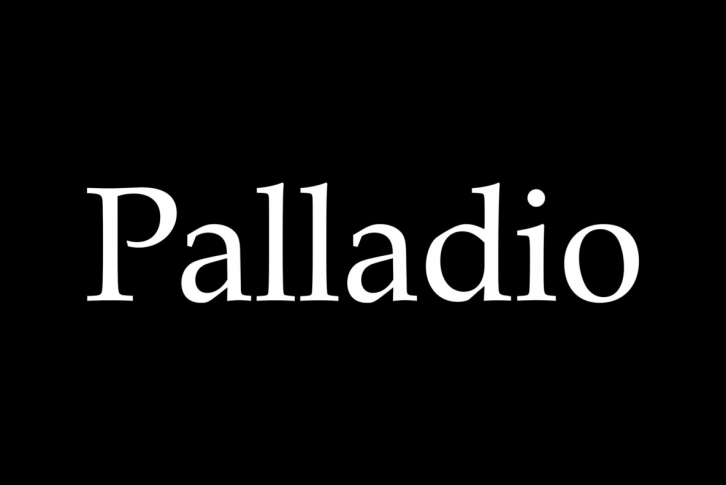
URW Palladio (or known as Palatino) is the name of this typeface family that began as an old style serif typeface designed by Hermann Zapf initially released in 1948.
In 1999, Zapf revised Palatino for Linotype and Microsoft, called Palatino Linotype. The revised family incorporated extended Latin, Greek, and Cyrillic character sets.
Under the collaboration of Zapf and Akira Kobayashi, the Palatino typeface family was expanded. Linotype released the Palatino nova, Palatino Sans, and Palatino Sans Informal families, expanding the Palatino typeface families to include humanist sans-serif typefaces. Palatino nova was released in 2005, while the others were released in 2006.
Zapf worked with URW on this typeface, but Linotype retains the license to the name Palatino.